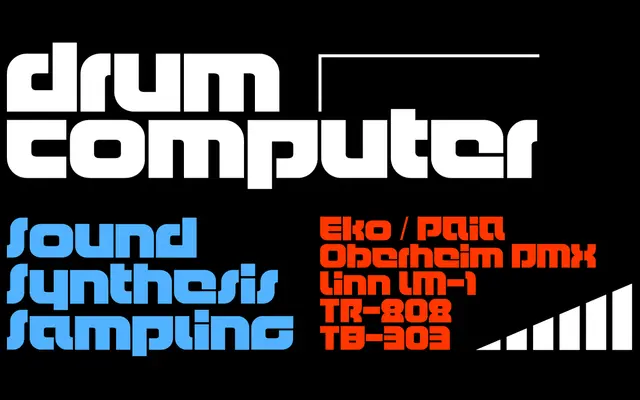
BD Ritmic
Type Different · 2002
A single-weight display face born from a Drum'n'Bass label logotype in 2002, updated in 2023 with broader language support and capital letters.
Originally drawn for a Drum'n'Bass label in 2002, the design carries the hard-edged energy of electronic music graphics into type. A 2023 update added capital letters, extended Latin language support across nearly 30 languages, and general refinements. Available as a single Regular weight, it is built for headline and logotype contexts where visual impact outweighs versatility.
A techno-inflected display face with electronic music origins, designed for logotype work and expressive headline use rather than text setting.